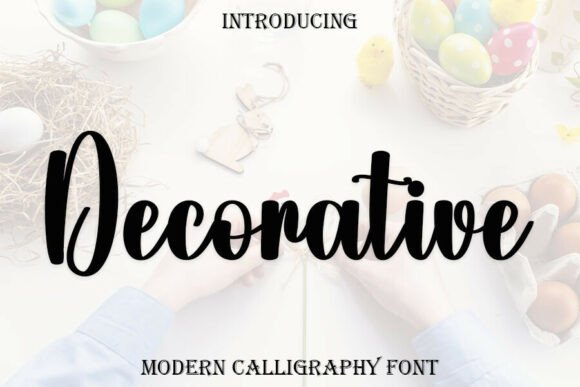
Elevate Your Designs with Decorative Font: A Sweet and Cursive Handwritten Gem
Are you on the hunt for a font that adds a touch of elegance and whimsy to your designs? Look no further than Decorative Font, a sweet and cursive handwritten font that’s perfect for a variety of creative projects. With its gentle curves and playful vibe, this font is sure to bring a joyful and romantic touch to your branding, logos, wedding materials, greeting cards, fashion designs, and more!
The Versatility of Decorative Font
One of the best things about Decorative Font is its versatility. This font is incredibly flexible and can be used in a wide range of design applications. Whether you’re creating a logo for a new business, designing an invitation for a wedding or baby shower, or crafting a lookbook for a fashion brand, Decorative Font is the perfect choice. Its elegant yet casual vibe makes it suitable for both formal and informal designs, allowing you to add a touch of sophistication to your projects without sacrificing personality.
Why Choose Decorative Font?
So, what sets Decorative Font apart from other fonts on the market? Here are just a few reasons why designers and crafters love working with this beautiful font:
- Elegant yet casual: Decorative Font strikes the perfect balance between elegance and casualness, making it suitable for a wide range of design applications.
- Handwritten charm: The cursive, handwritten style of Decorative Font adds a touch of warmth and personality to your designs, setting them apart from more traditional fonts.
- Easy to read: Despite its elegant and cursive nature, Decorative Font is surprisingly easy to read, making it perfect for body text and headlines alike.
- Highly versatile: From branding and logos to wedding materials and fashion designs, Decorative Font can be used in a wide range of creative projects.
Design Ideas to Get You Started
Now that you’ve fallen in love with Decorative Font, it’s time to start brainstorming design ideas! Here are a few suggestions to get you started:
- Wedding invitations: Add a touch of romance and elegance to your wedding invitations with Decorative Font.
- Fashion lookbooks: Use Decorative Font to add a touch of sophistication and glamour to your fashion lookbooks and marketing materials.
- Greeting cards: Create beautiful and heartfelt greeting cards for special occasions like birthdays, anniversaries, and holidays.
- Branding and logos: Use Decorative Font to create a unique and memorable brand identity that sets you apart from the competition.
Tips for Working with Decorative Font
To get the most out of Decorative Font, here are a few tips to keep in mind:
- Experiment with font sizes: Decorative Font looks beautiful in a variety of font sizes, so don’t be afraid to experiment and find the perfect size for your design.
- Pair with contrasting fonts: Pair Decorative Font with a contrasting font to create visual interest and add depth to your design.
- Use in moderation: While Decorative Font is beautiful, it’s best used in moderation. Use it sparingly to add a touch of elegance and whimsy to your design.
In conclusion, Decorative Font is a sweet and cursive handwritten font that’s perfect for designers and crafters looking to add a touch of elegance and whimsy to their designs. With its versatility, elegance, and handwritten charm, this font is sure to become a staple in your design toolkit. So why wait? Download Decorative Font today and start elevating your designs to the next level!